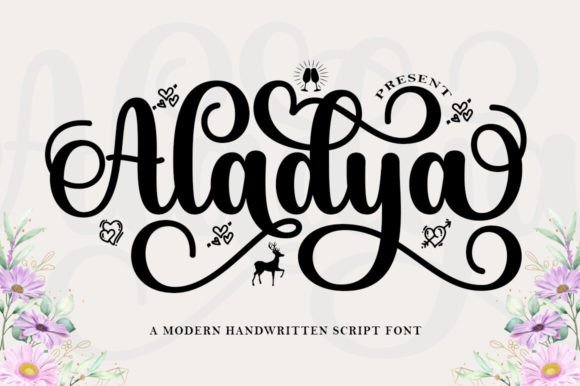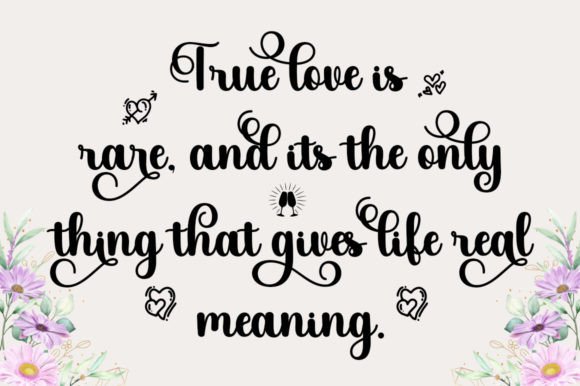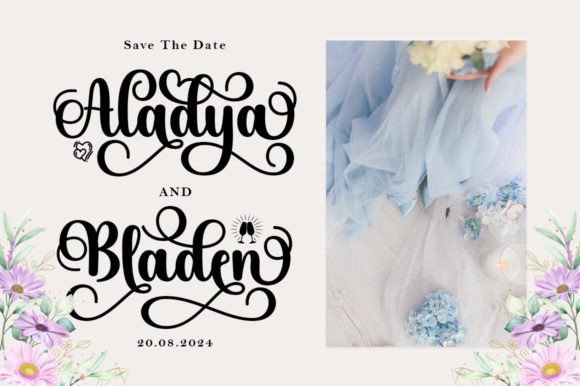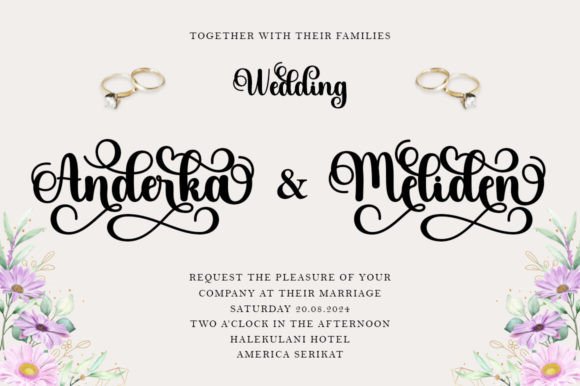
Aladya Font: Elegant Calligraphy for Wedding Invitations & Branding
About the Aladya Font
The Aladya Font is here to transform your projects with its distinctive character and style. Aladya is an elegant and flowing handwritten font. It features varied baselines, smooth lines, gorgeous glyphs, and stunning alternatives. It maintains a classy calligraphic influence while feeling contemporary and fresh. Fall in love with this font and take your projects to the highest level!
Aladya’s elegant, flowing style works best for headlines, short text blocks, and branding elements where its refined character can shine. It’s ideal for invitations, logos, and packaging design for luxury or artisanal products. Avoid using it for body text or lengthy paragraphs; its varied baseline makes extended reading difficult.
For effective pairings, consider a clean sans-serif like Lato or Open Sans for body copy, providing a strong contrast. Alternatively, a classic serif like Garamond or Playfair Display could enhance its sophisticated feel for a more traditional aesthetic. A simple geometric sans-serif would also offer a modern balance.
Aladya possesses a sophisticated, yet approachable personality. Its elegant curves convey a sense of luxury and refinement without being overly formal, making it versatile for a range of high-end brands and projects requiring a touch of understated class.